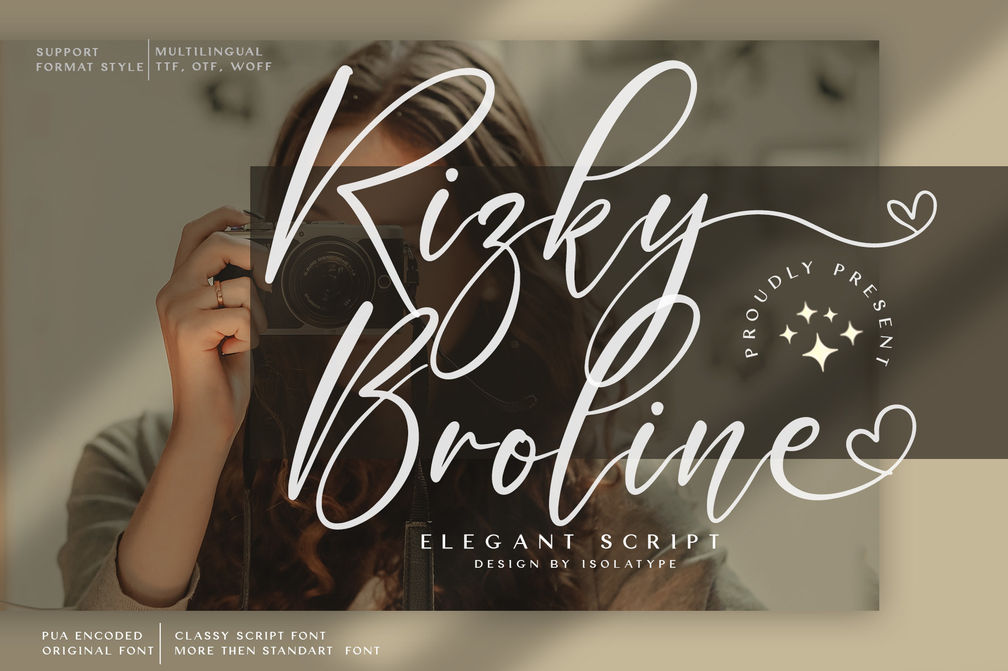
Rizky Broline
Rizky Broline is a delicate and flowing script font. Fall for its ravishing style and use it to create gorgeous wedding invitations, beautiful stationary art, eye-catching social media posts, and much more!